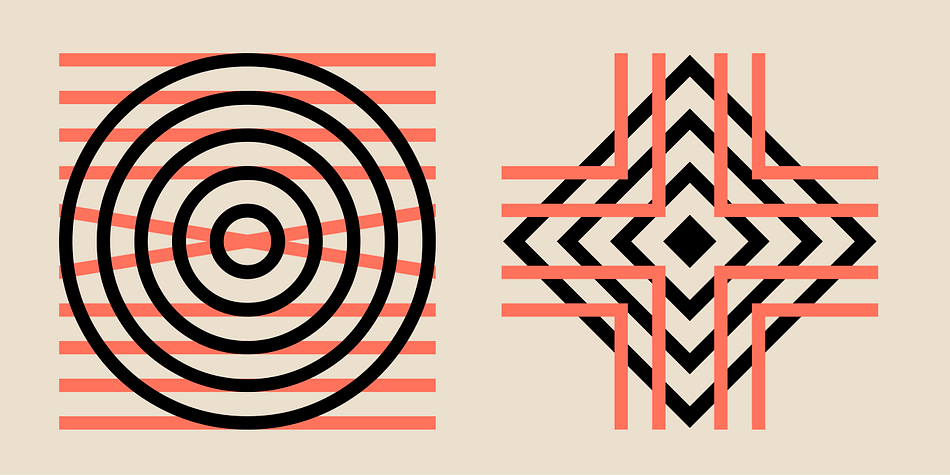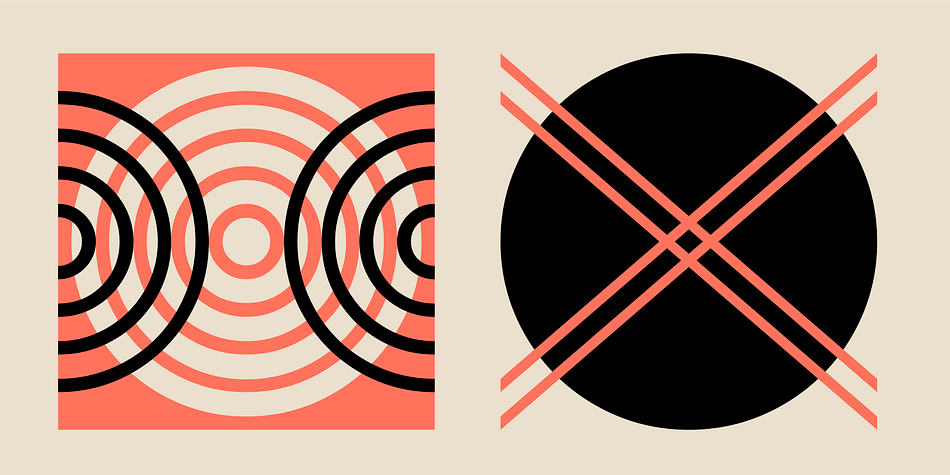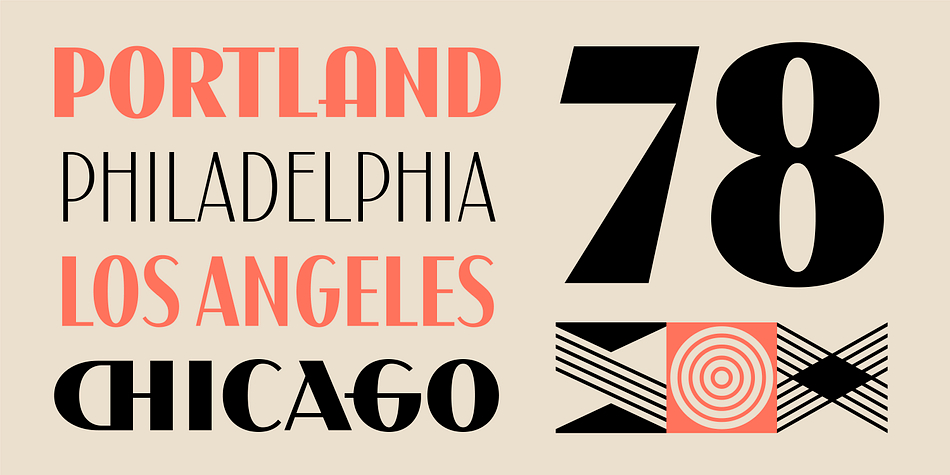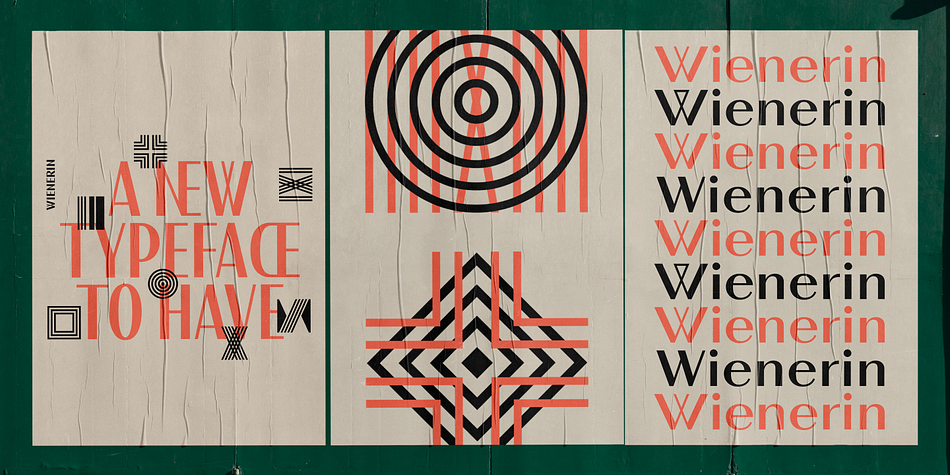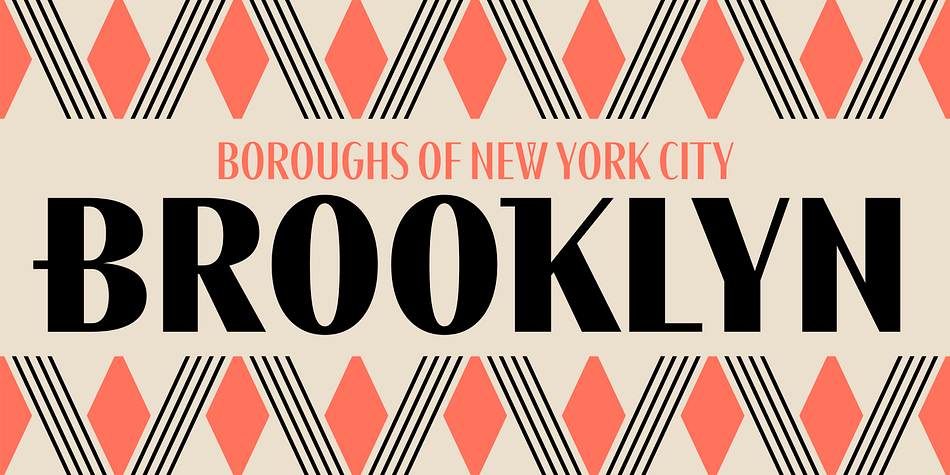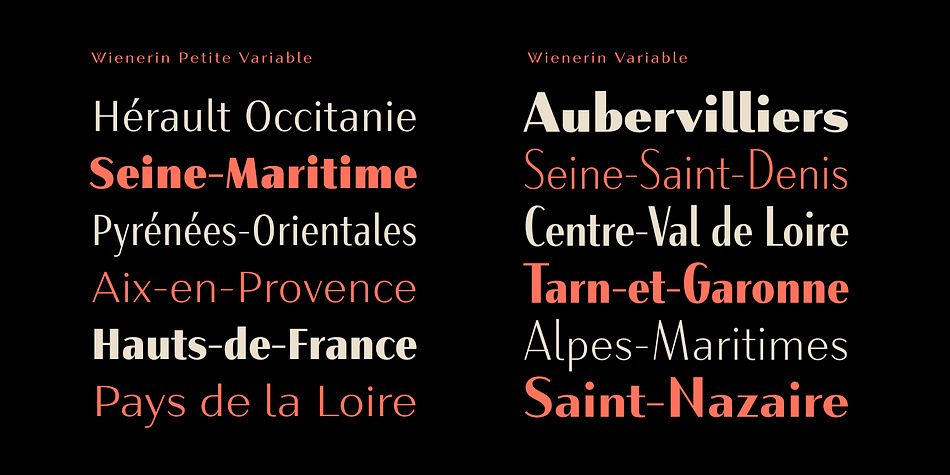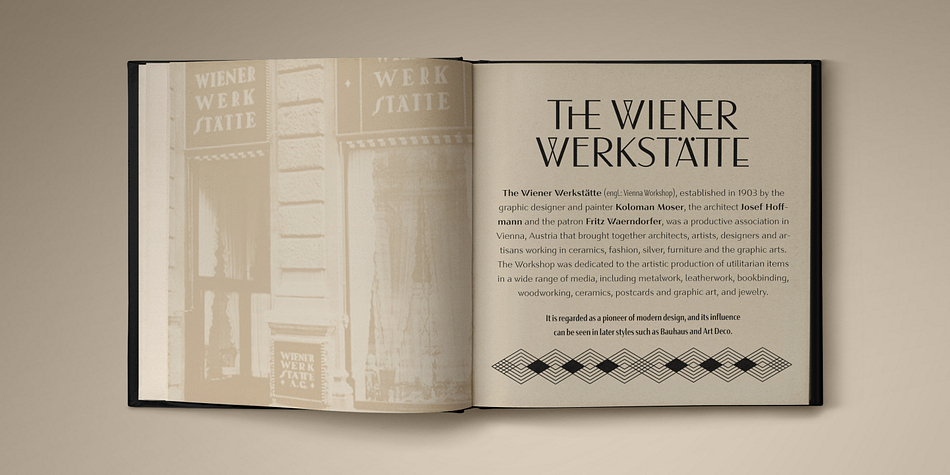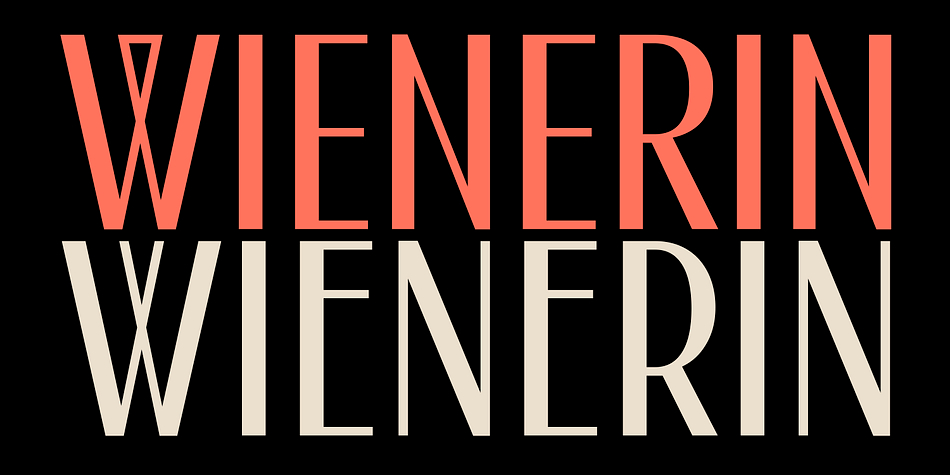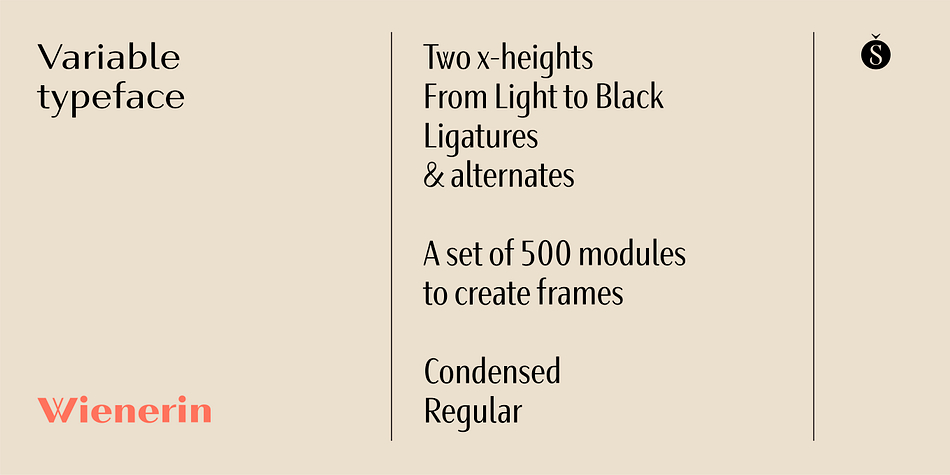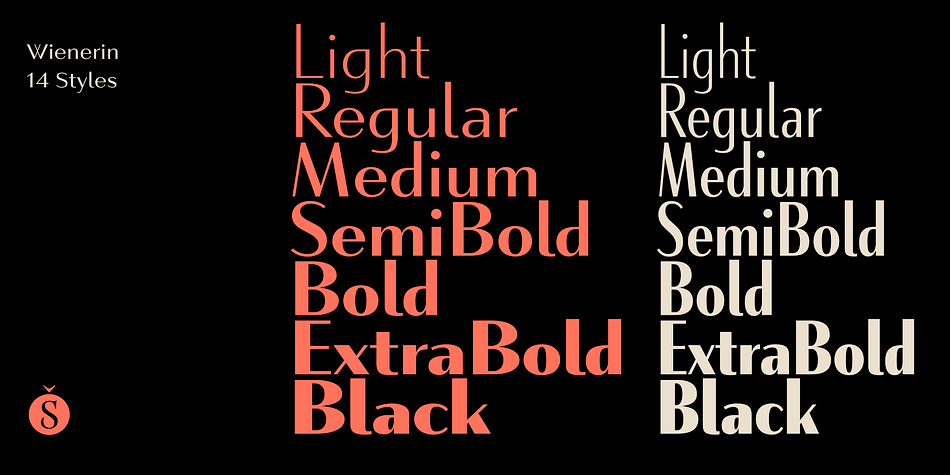
Designed by Alejandro Paul, Wienerin is a multiple classification font family. This typeface has thirty-four styles and was published by Sudtipos.
The starter point of the Wienerin typeface is based on the work of Austrian designer and artist Carl Otto Czeschka who was part of The Wiener Werkstätte, an early twentieth century association of designers, architects, craftsmen, ceramists, jewelers and other graphic arts in his country. This collective of artists was influential for both Bauhaus, art deco and Scandinavian design.
Wienerin is a revision and expansion of the Olympia typeface designed almost 100 years ago by Czeschka but adapted for contemporary use with the inclusion of numerous alternative signs and ligatures. Variable font technology allows a greater variety of weights to be achieved. One of the features of the original design was the inclusion of “eifassungen” or modules to create frames. Wienerin presents a repertoire of 500 in 3 weights. With an upward elongated design we have decided to also create a version of the typeface with a larger x-box that allows for a wider use of the typeface family.
Because of its contrast it is ideal for use in delicate design pieces such as editorial design, elegant labels, stationery and fashion.
All styles of the Wienerin typeface family cover most Latin languages.